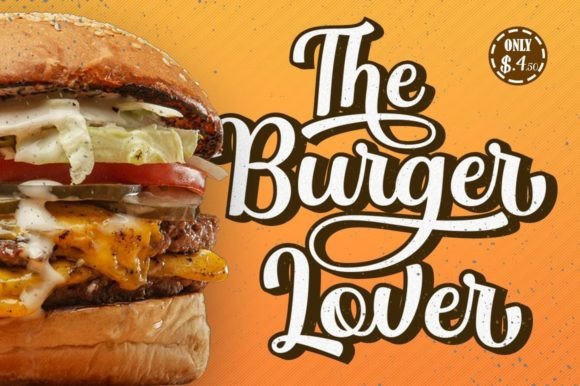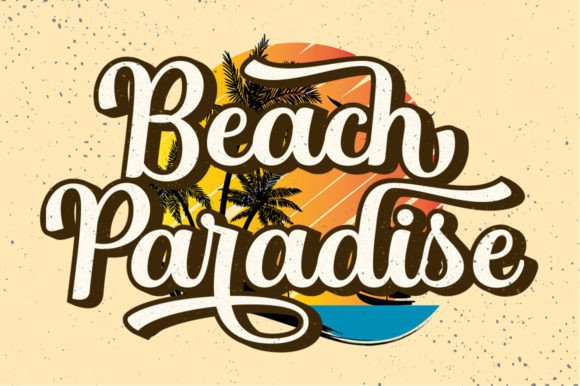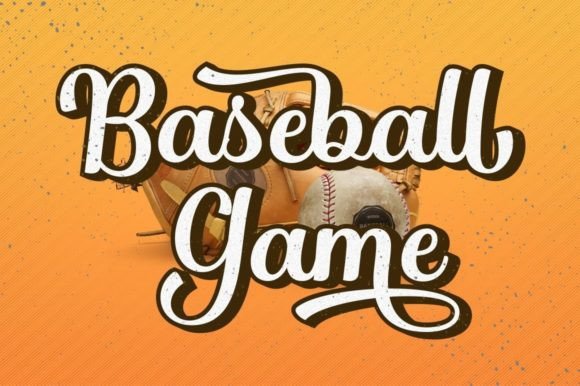
Singtton Vintage Font
Introducing a new font called Singtton Vintage. True to its name, the word ‘Singtton Vintage’ is slang for something that is the cutest, coolest, prettiest, smartest, and most fun around.
You are the most Singtton Vintage! Singtton Vintage is a bold script font with a vintage retro style. This font is perfect for you letter lovers because of its many alternatives and very interesting ligatures.
And of course, you can use this font for branding; it’s good for logos and logotypes. The bold style makes your product look very confident to appear in the general market.
No doubt about it – this is a great choice for logo fonts and types. You are the most Vintage!